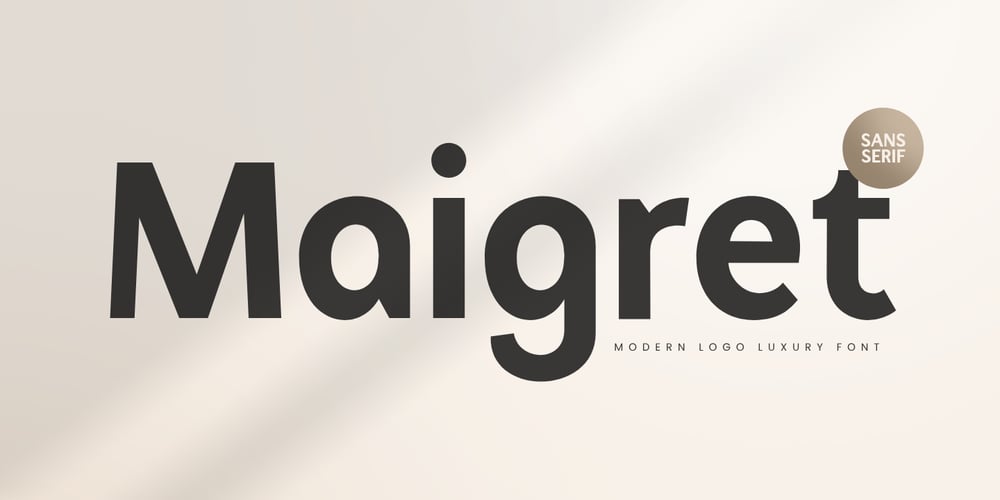
Maigret Font Family was designed by Zamroni Hamzah and published by Sensatype Studio. Maigret contains 1 styles and family package options. A Modern Professional Logo Font that special for logo, branding, poster, headline and any project that we created special for Professional and Modern branding needs that will give you more Unique look, with unique shape will be ready to add value of your brand. It so nice to leverage designer or product owner that need solutions to make their design look more Professional and modern. And specially for this font, We prepared any unique characters to help you create unlimited variations for your creative needs.Maigret Modern font ready with: Any options to get creative variations 4 format already Preview as a inspirations that you can do with this font Ready with Lowercase and Uppercase characters Wish you enjoy our font. 🙂